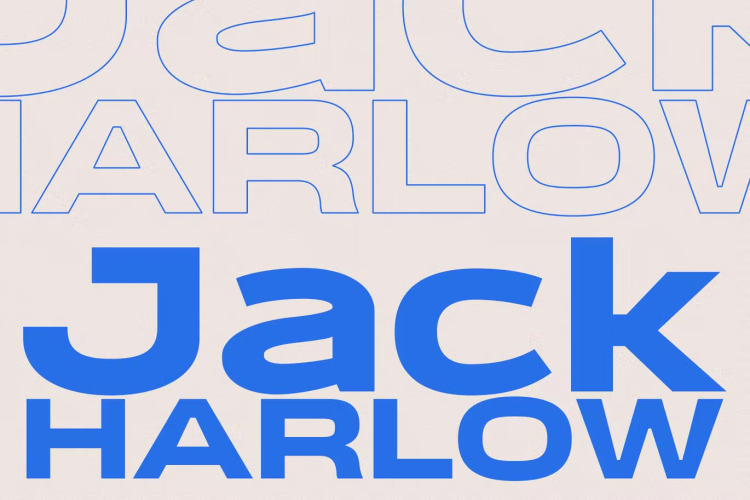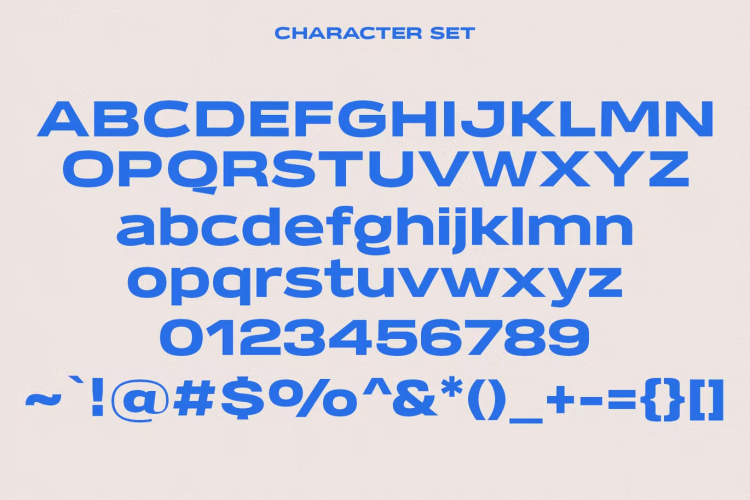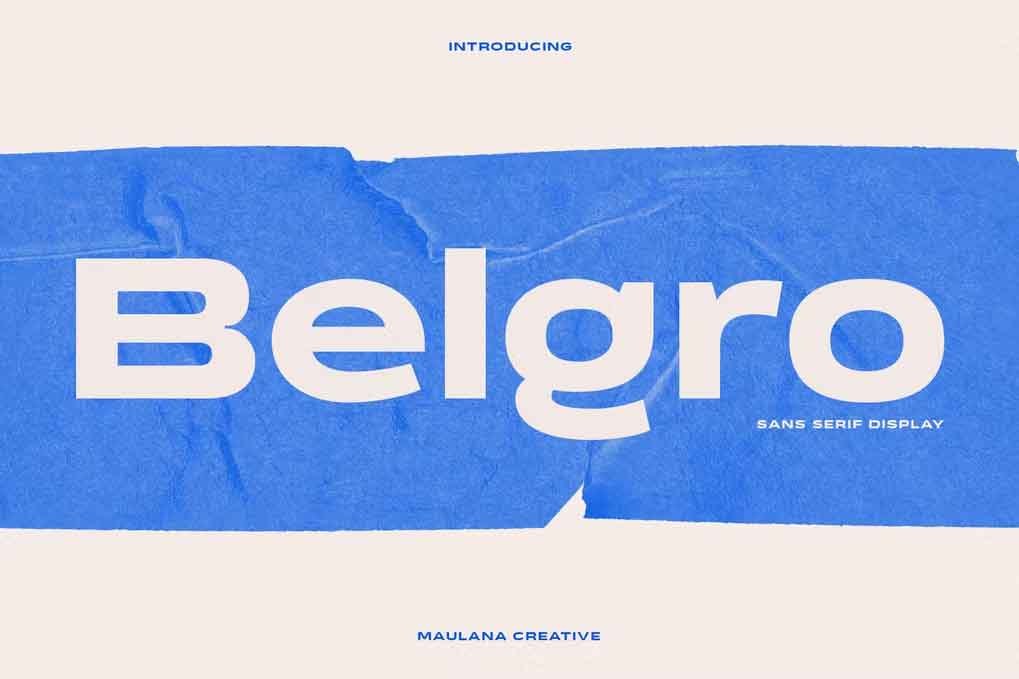
Belgro Display Font
Belgro is a modern sans serif font. With bold stroke, fun character with a bit of ligatures and alternates. To give you an extra creative work. Belgro font support multi…
Belgro is a modern sans serif font. With bold stroke, fun character with a bit of ligatures and alternates. To give you an extra creative work. Belgro font support multilingual more than 100+ language. This font is good for logo design, Social media, Movie Titles, Books Titles, a short text even a long text letter and good for your secondary text font with sans or serif. Make a stunning work with Belgro font.
Where Belgro Display Font works best
Belgro Display Font stays legible at small sizes, which makes it a strong choice for navigation, buttons and dashboards in web design and app interfaces.
Clean sans serifs like Belgro Display Font are the default language of SaaS, fintech and product branding.
What is Belgro Display Font good for?
Belgro Display Font is a Sans Serif Fonts typeface tagged Bold, Creative, Display, Modern. It works well for headlines, logos, posters, social media graphics and branding projects that need a distinctive sans serif fonts look.